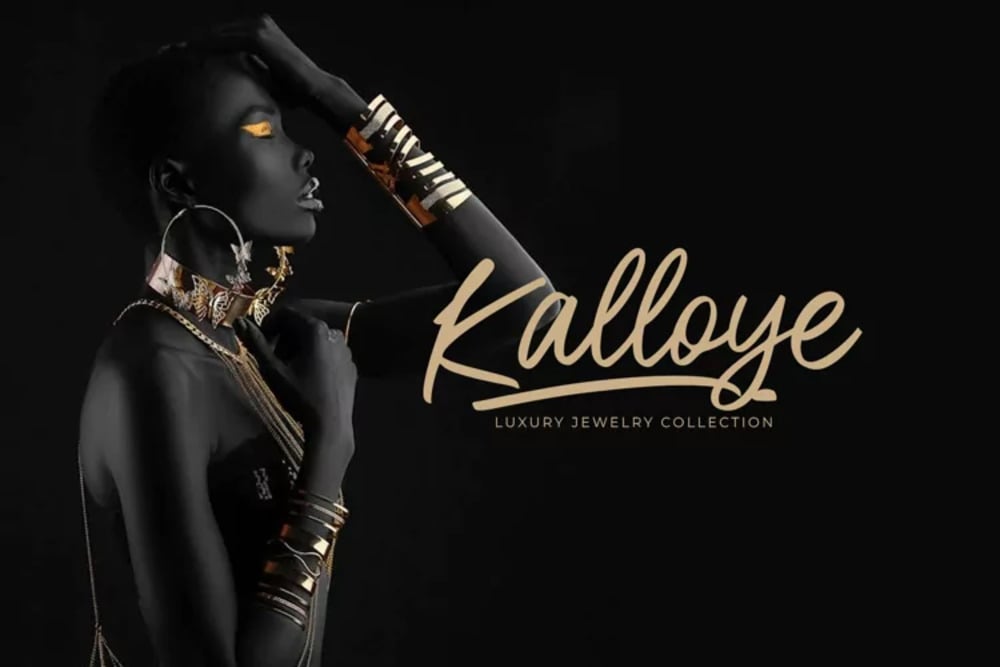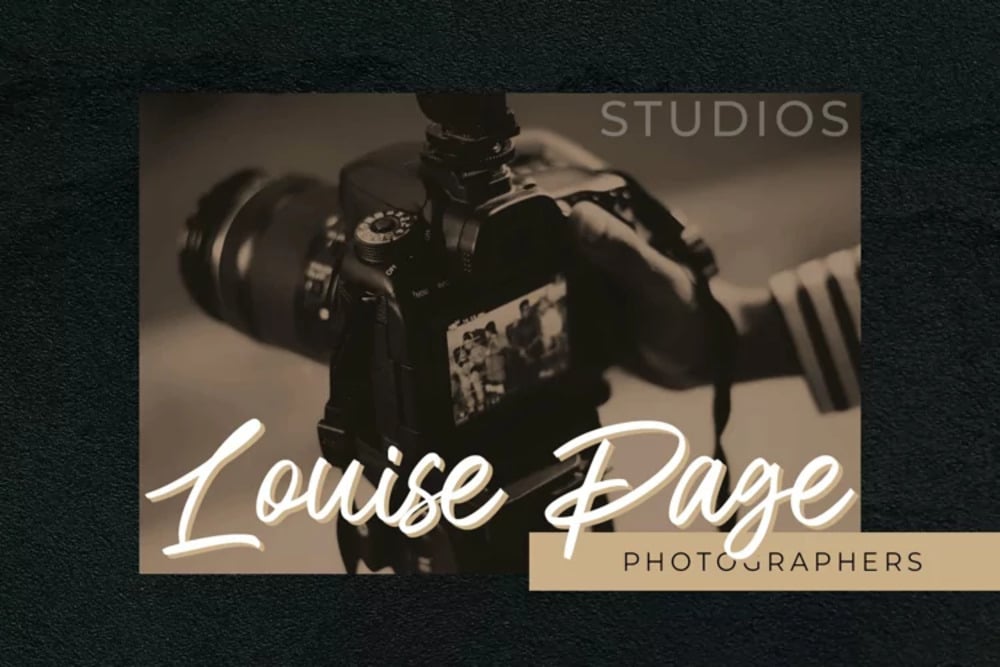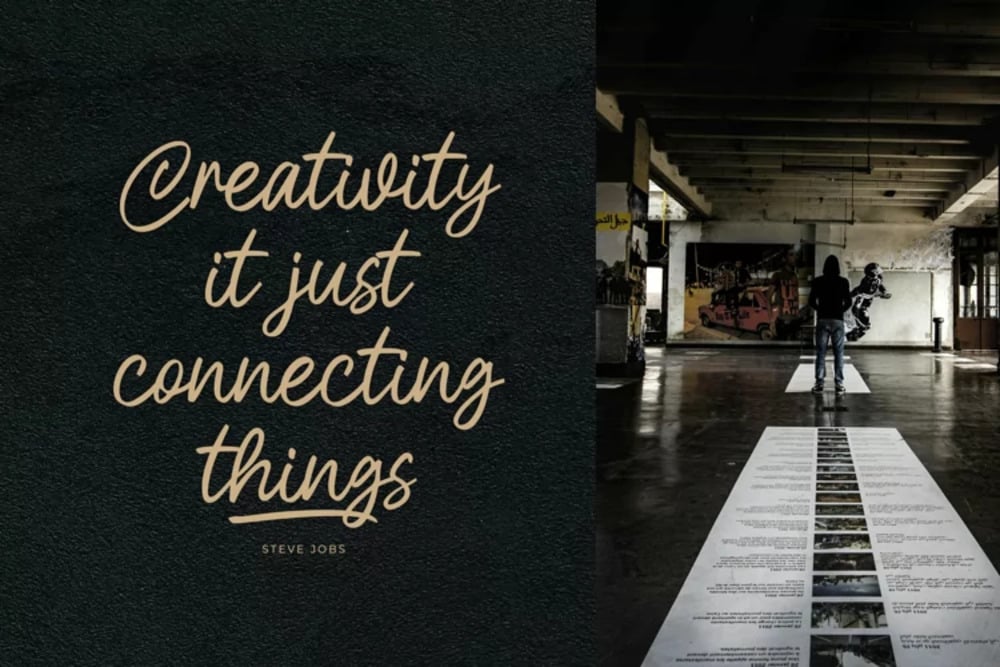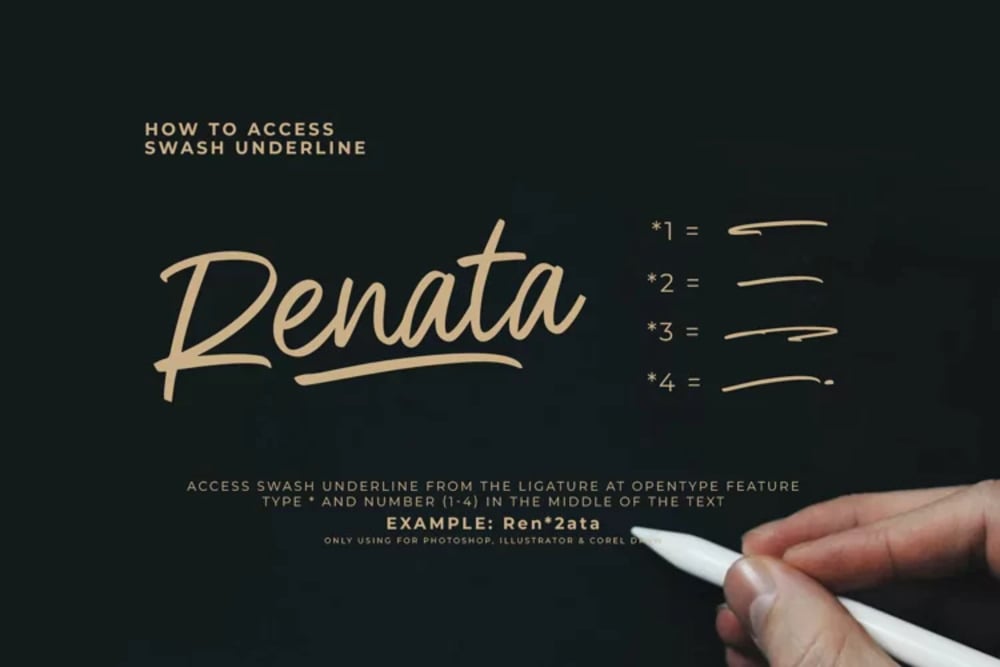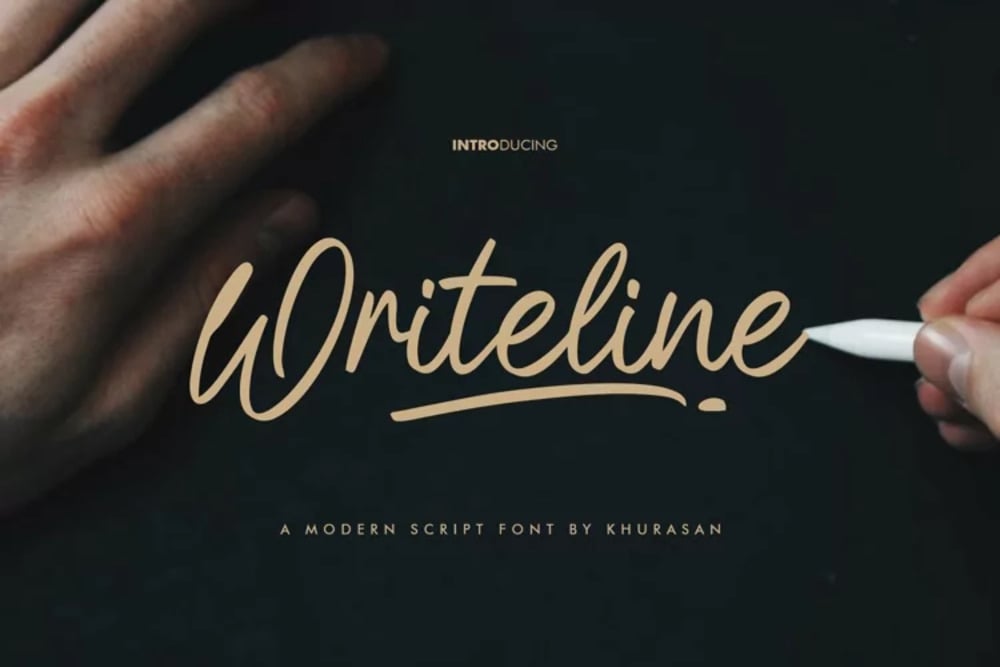
Writeline Font
Writeline is a sleek and elegant script font that mimics the beauty of fluid handwriting. With its smooth strokes, natural flow, and refined curves, it’s perfect for invitations, branding, and personal projects. Balancing sophistication with a handwritten charm, Writeline adds a touch of warmth and authenticity, making every design feel personal, stylish, and effortlessly graceful.